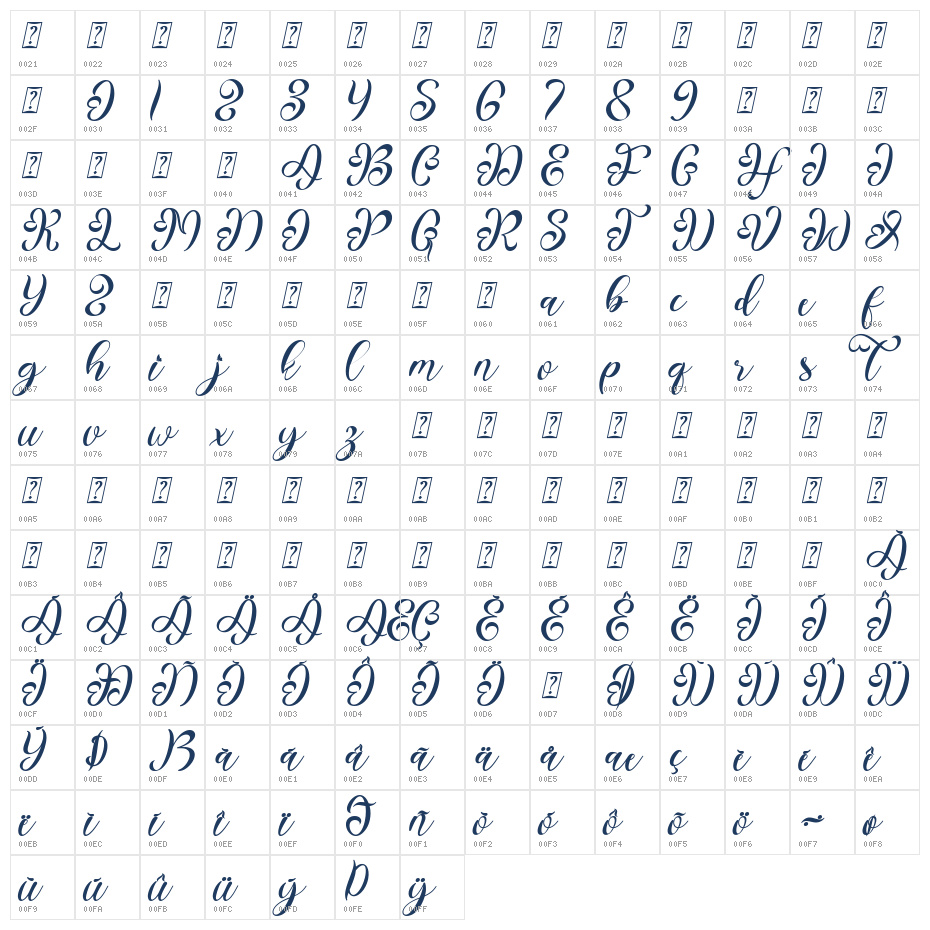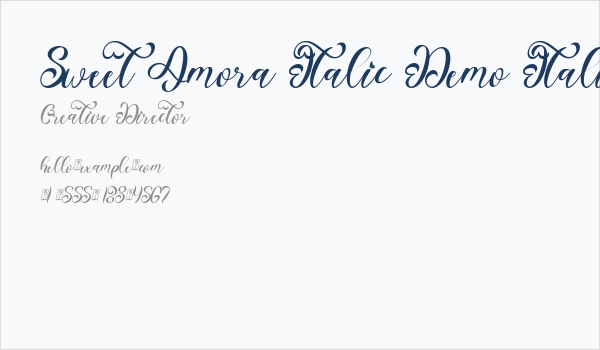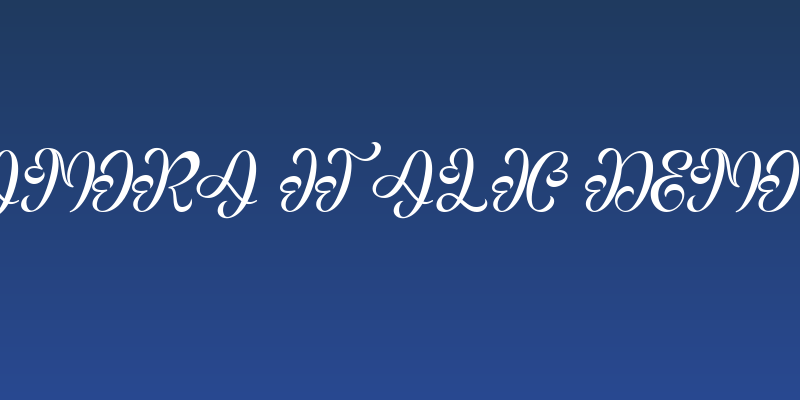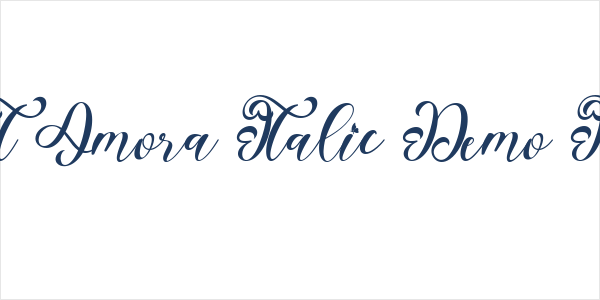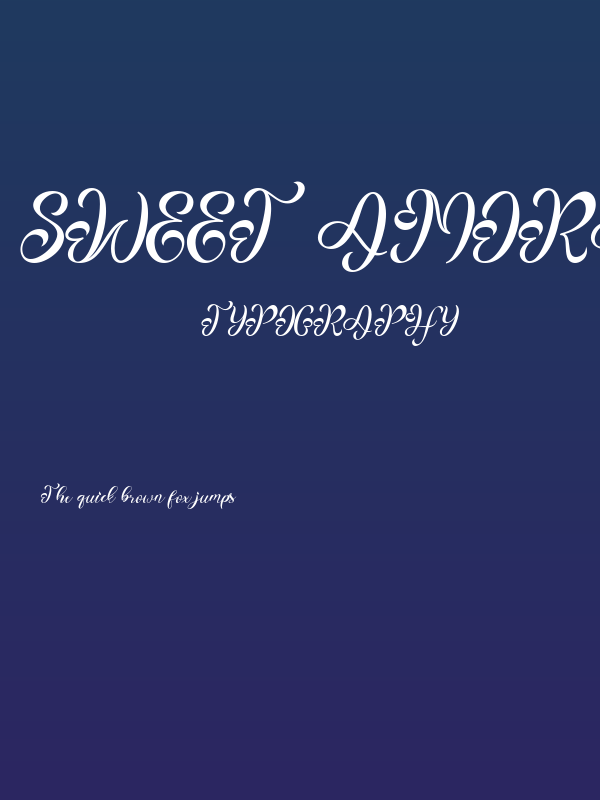
Sweet Amora Italic Demo Italic Font
Sweet Amora Italic Demo Italic Description
A decorative, cursive script font with elegant, flowing lines and a calligraphic style. The uppercase letters are ornate with flourishes, while the lowercase letters are smooth and connected. The numbers are styled with a similar cursive flair, and the punctuation marks are enclosed in decorative boxes.
Sweet Amora Italic Demo
| Overall Style | Elegant, Calligraphic, Decorative |
| Use Case | Headlines, Invitations, Logos, Decorative Text |